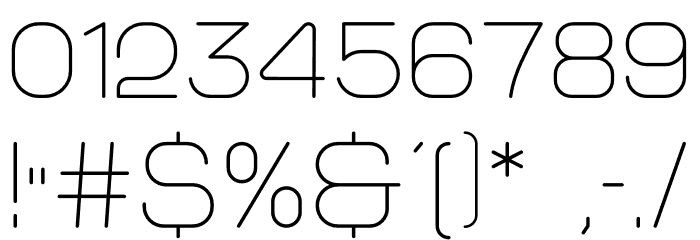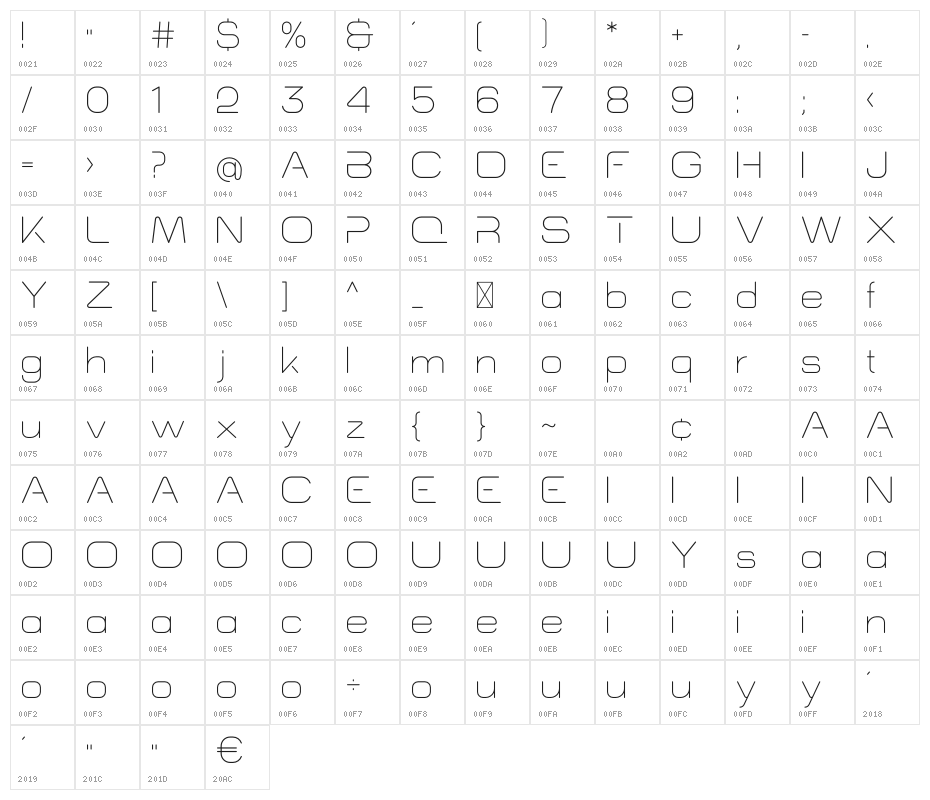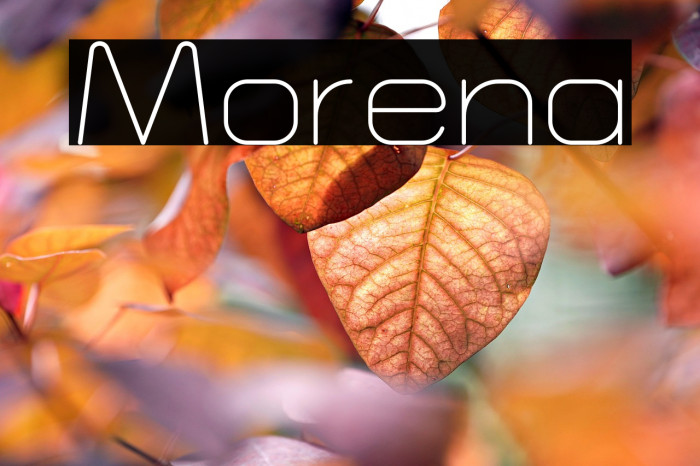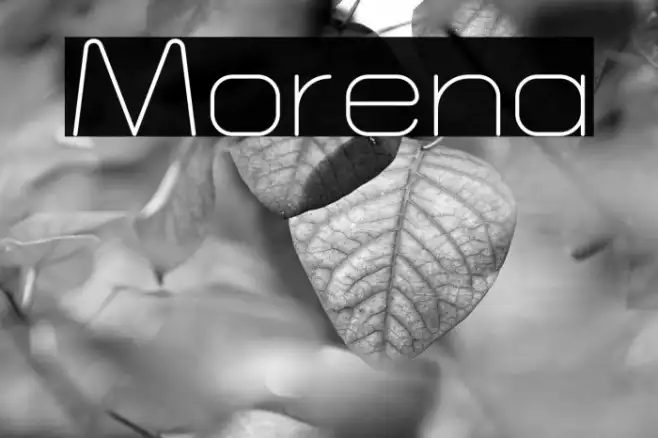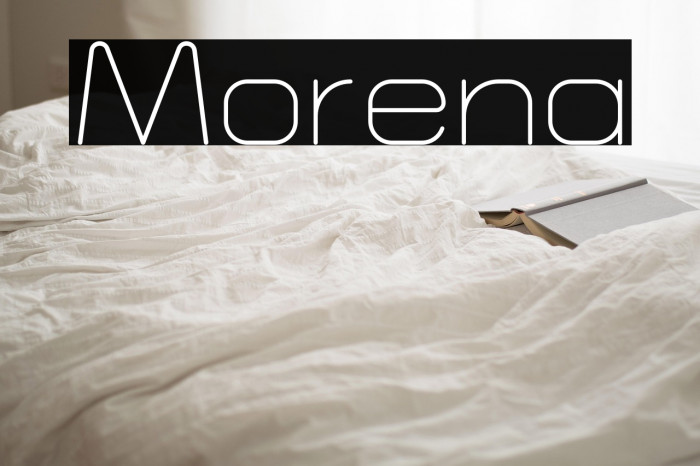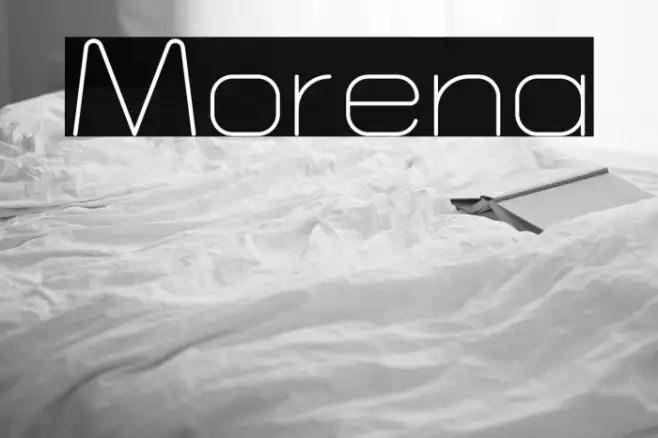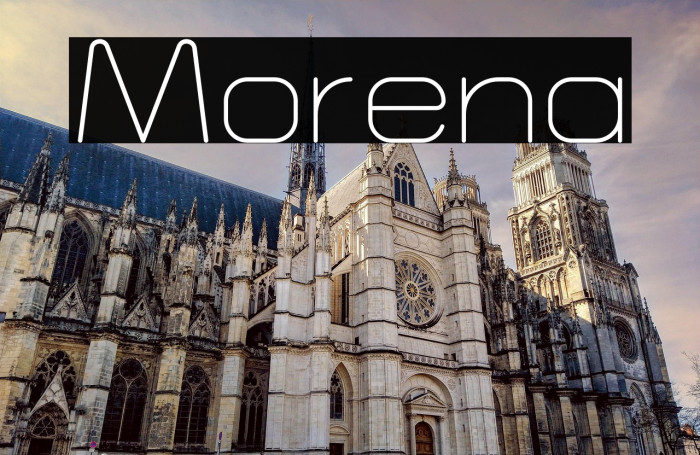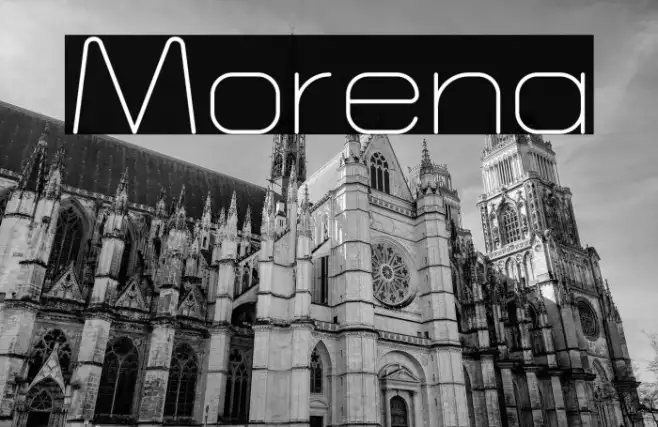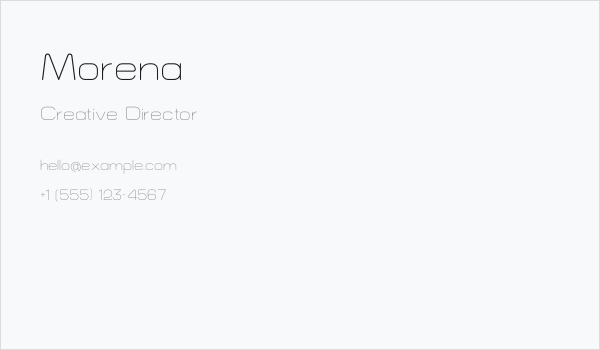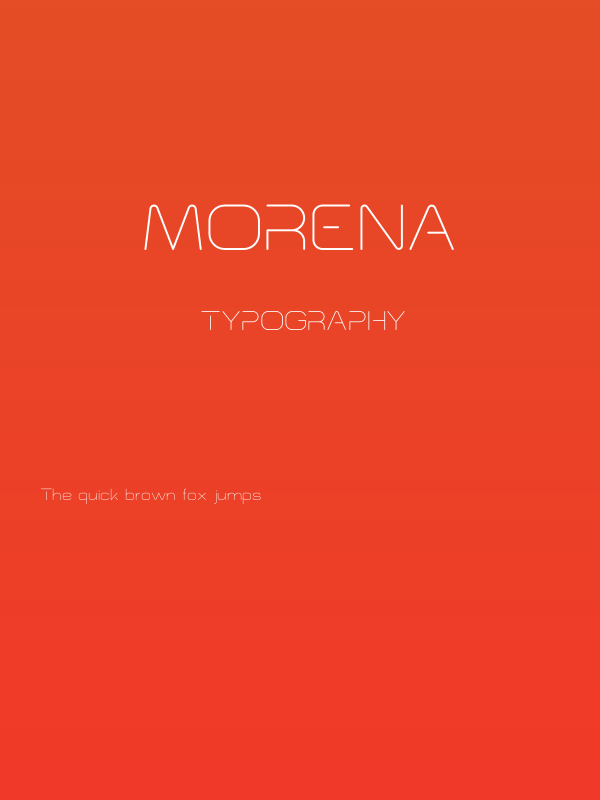
Morena Font
Morena Description
This font features a sleek, modern design with clean lines and a minimalist aesthetic. The characters are geometric and uniform, giving it a futuristic feel. The uppercase and lowercase letters maintain a consistent style, with rounded edges and a balanced structure. The numerals are clear and easy to read, matching the overall design. Special characters are included, maintaining the same geometric and minimalist style. This font is ideal for projects that require a contemporary and sophisticated look.
| Proposed Projects | Ideal for tech branding, modern web design, and minimalist posters. |